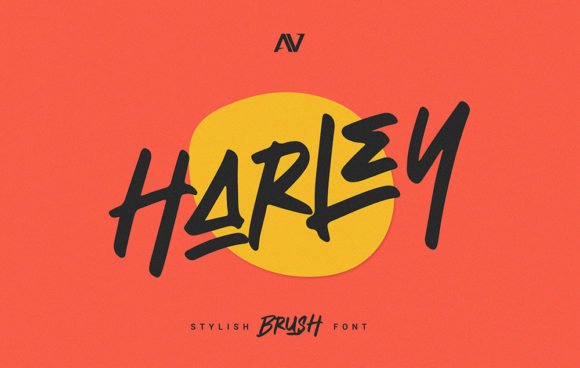
Unleashing the Power of Street Art Typography
You’re in the zone, surrounded by vibrant colors and bold lines. Your imagination is running wild, and you’re inspired to create something that truly stands out. That’s when the magic happens – the perfect font can elevate your design from ordinary to extraordinary. For designers seeking a unique visual identity, the Harley Font is about to become your new best friend.
This graffiti-styled display font is a game-changer for designers who crave a street art vibe. With its edgy, urban feel, Harley Font is perfect for projects like t-shirts, sportswear, logos, and advertisements. Its versatility makes it an invaluable addition to any design arsenal, and its bold, eye-catching style is sure to grab attention.
- Unique Characteristics: Distinctive, elegant script with a vintage flair, perfect for creative and artistic projects
Harley Font Review
When I first laid eyes on the Harley Font, I was immediately drawn to its bold and edgy aesthetic. ✨ The font’s distressed texture and rough edges give it a raw, DIY feel that’s perfect for punk rock-inspired designs or streetwear brands.
One of the standout features of the Harley Font is its versatility. ✨ It’s available in a range of styles, from bold and chunky to thin and delicate, making it suitable for a wide range of applications. The font also includes a range of swashes and alternates, which can add a touch of personality to your designs.
However, there are a few limitations to consider. ⚠️ For one, the font can be quite dense, which may make it difficult to read at smaller sizes. Additionally, some of the letterforms can be quite complex, which may make it challenging to customize or modify the font.
Overall, I think the Harley Font is a great addition to any designer’s toolkit. While it may have its limitations, its unique aesthetic and versatility make it a great choice for designers looking to add a touch of edge to their designs.
- Great for punk rock-inspired designs or streetwear brands
- Available in a range of styles and weights
- Includes swashes and alternates for added personality
- Can be dense and difficult to read at smaller sizes
- Some letterforms may be complex and difficult to customize
Use Harley Font for headings and titles to add a touch of elegance to your designs. Experiment with different font sizes and styles to create visual hierarchy. Combine Harley Font with other fonts to create a unique and eye-catching look.
Harley Font is perfect for:
- Boutique branding and packaging
- High-end fashion designs
- Any design that requires a touch of sophistication and elegance
Q: Is the Harley Font available in multiple weights and styles?